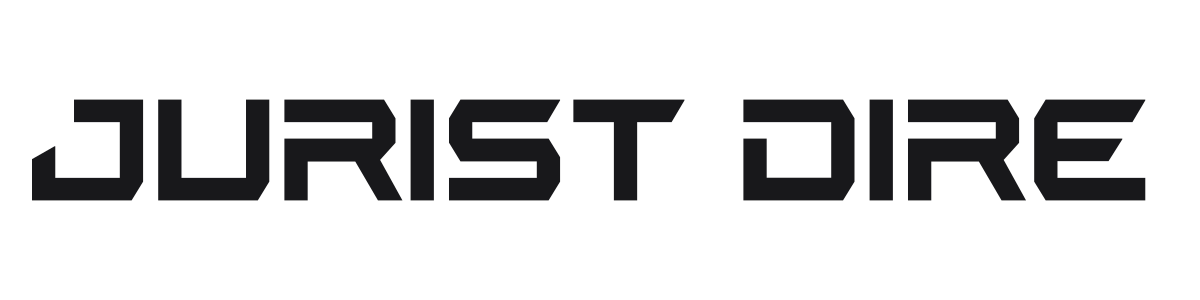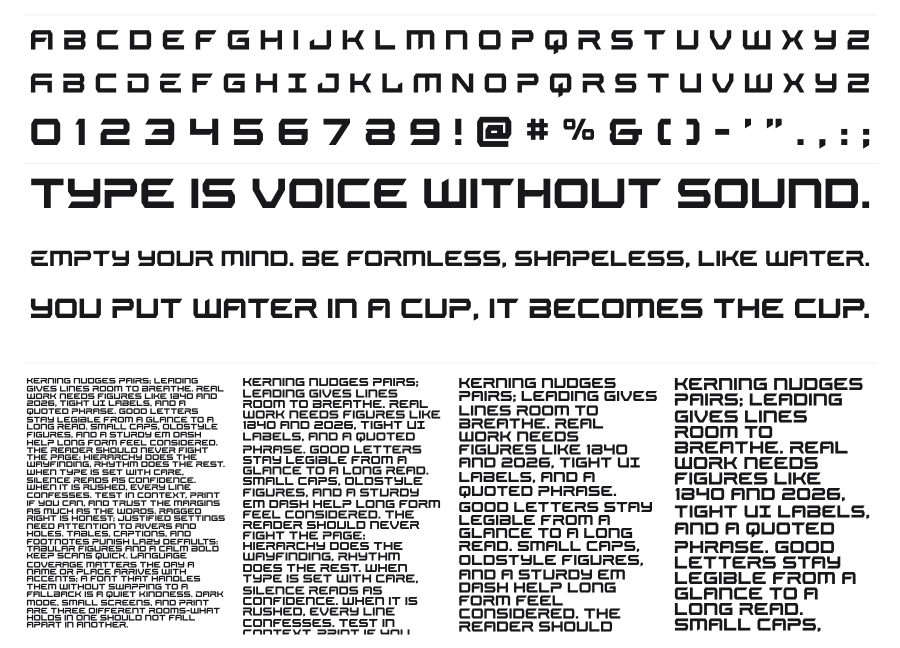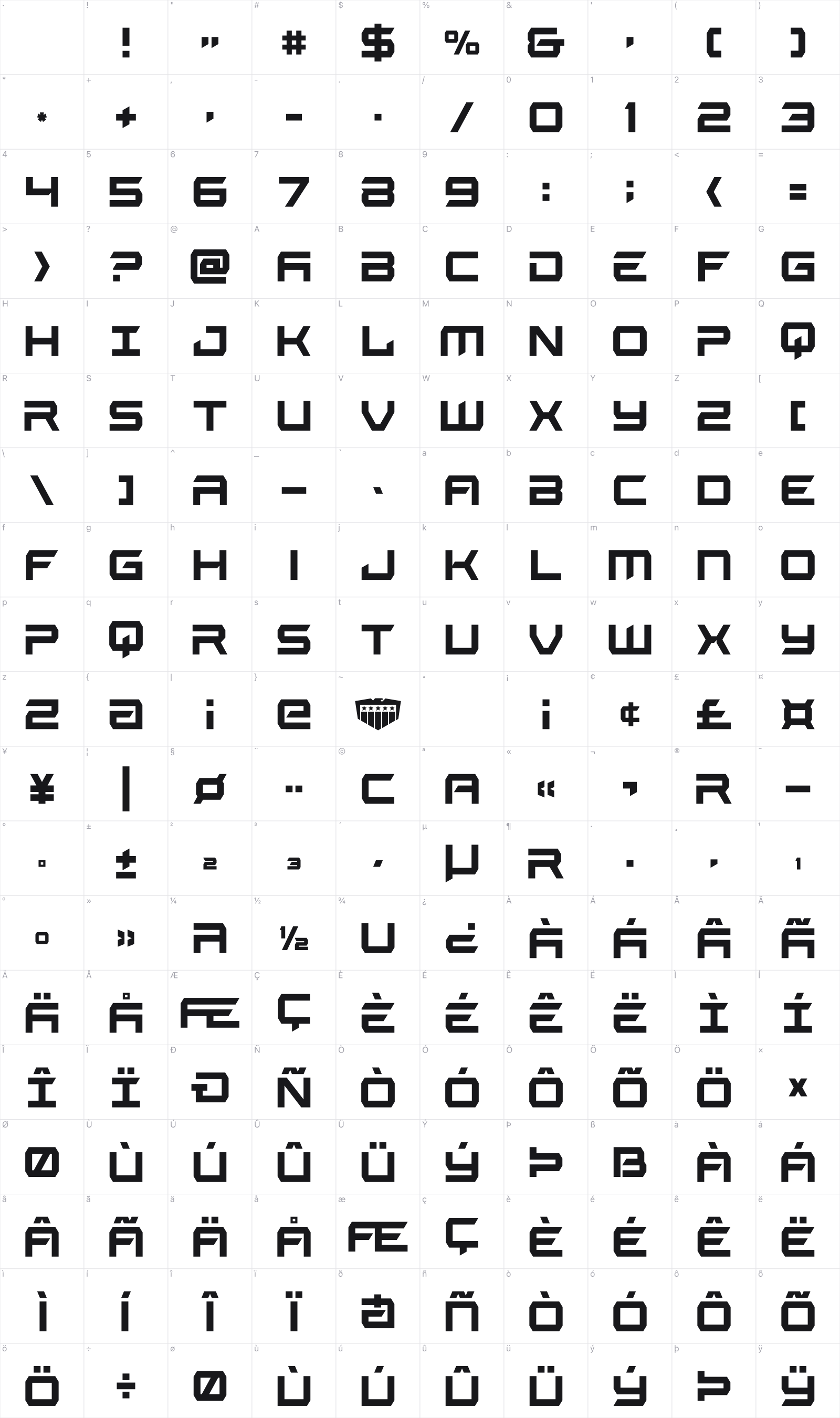
Jurist Dire
Jurist Dire is a bold square geometric sans with notched terminals and angular cutouts built into each character. The wide, blocky proportions and mechanical construction give it a no-nonsense, commanding presence that reads immediately as tech or military. It comes in an unusually large family of 34 variants, including 3D, outline, gradient, halftone, and laser styles.